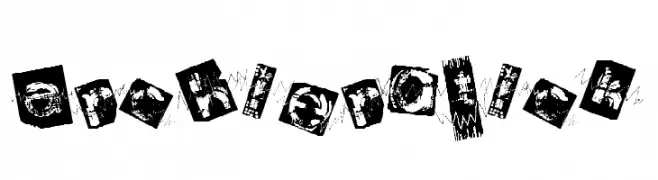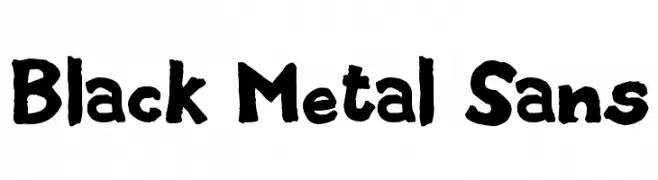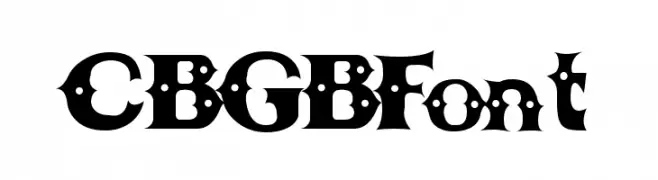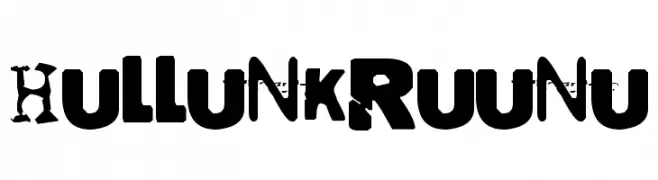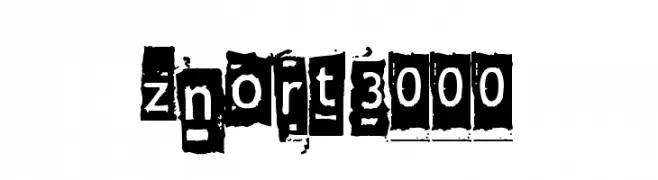
A bold, jagged font with a punk-inspired design, perfect for energetic and rebellious projects.
A bold, decorative font with punk rock influences and unique cut-out shapes.
A bold, grunge-style font with outlined, textured characters.
A bold, ransom-note style font with eclectic and textured characters.
A bold, rugged font with a hand-drawn, textured appearance.
A distressed, grungy font with a cut-out newspaper style.
A distressed, grunge-style font with a bold, weathered appearance.
A bold, distressed font with a grunge texture and rugged appearance.